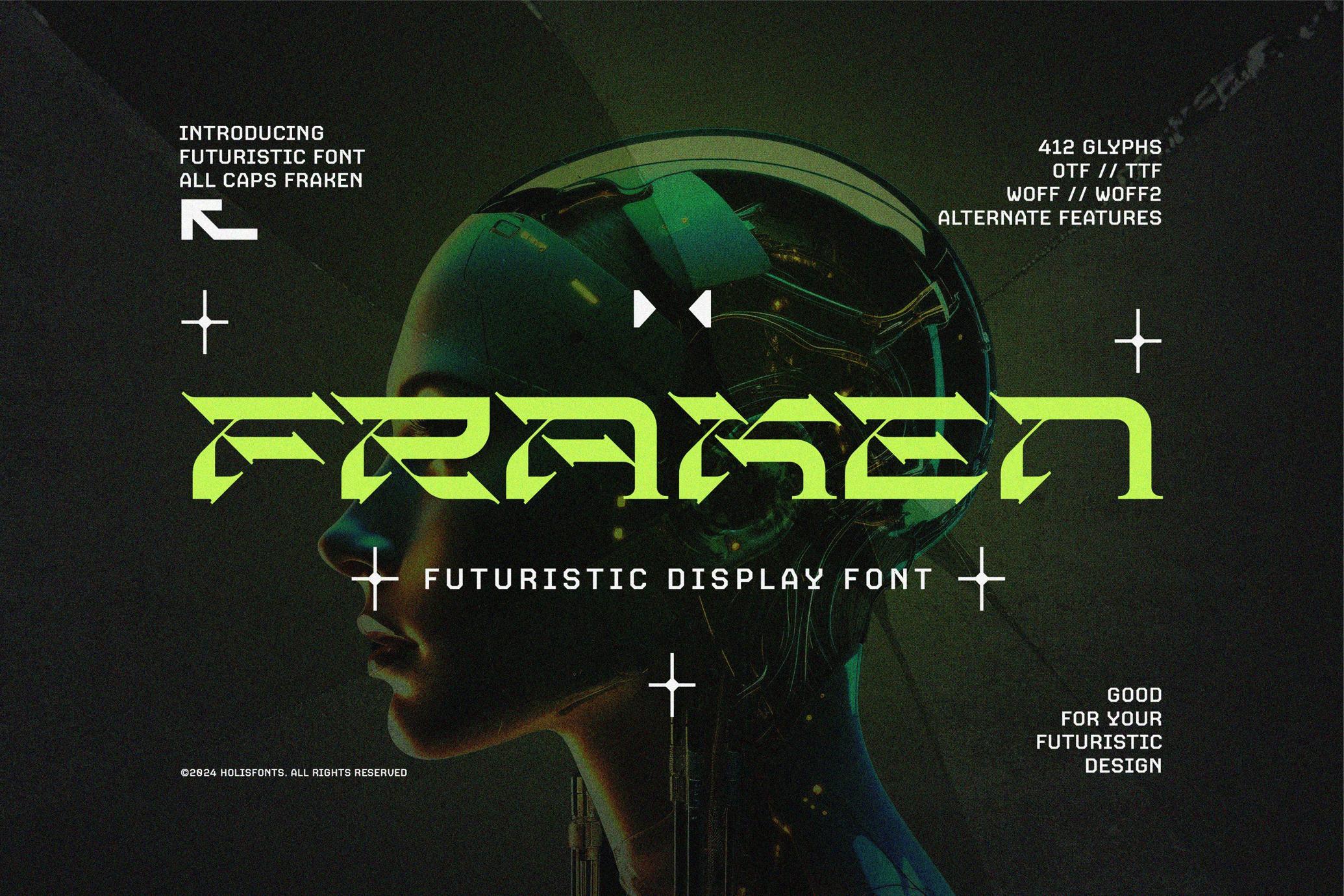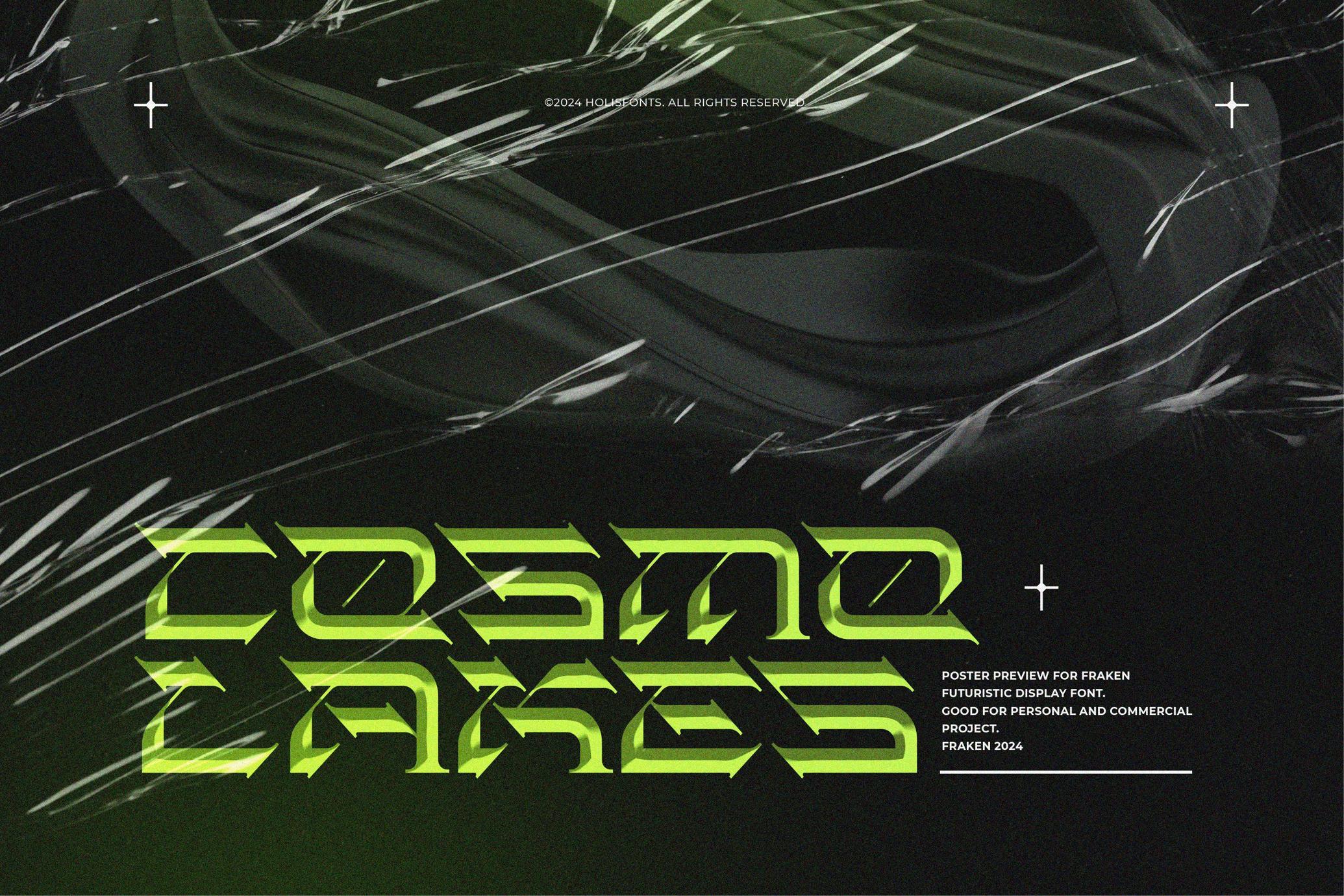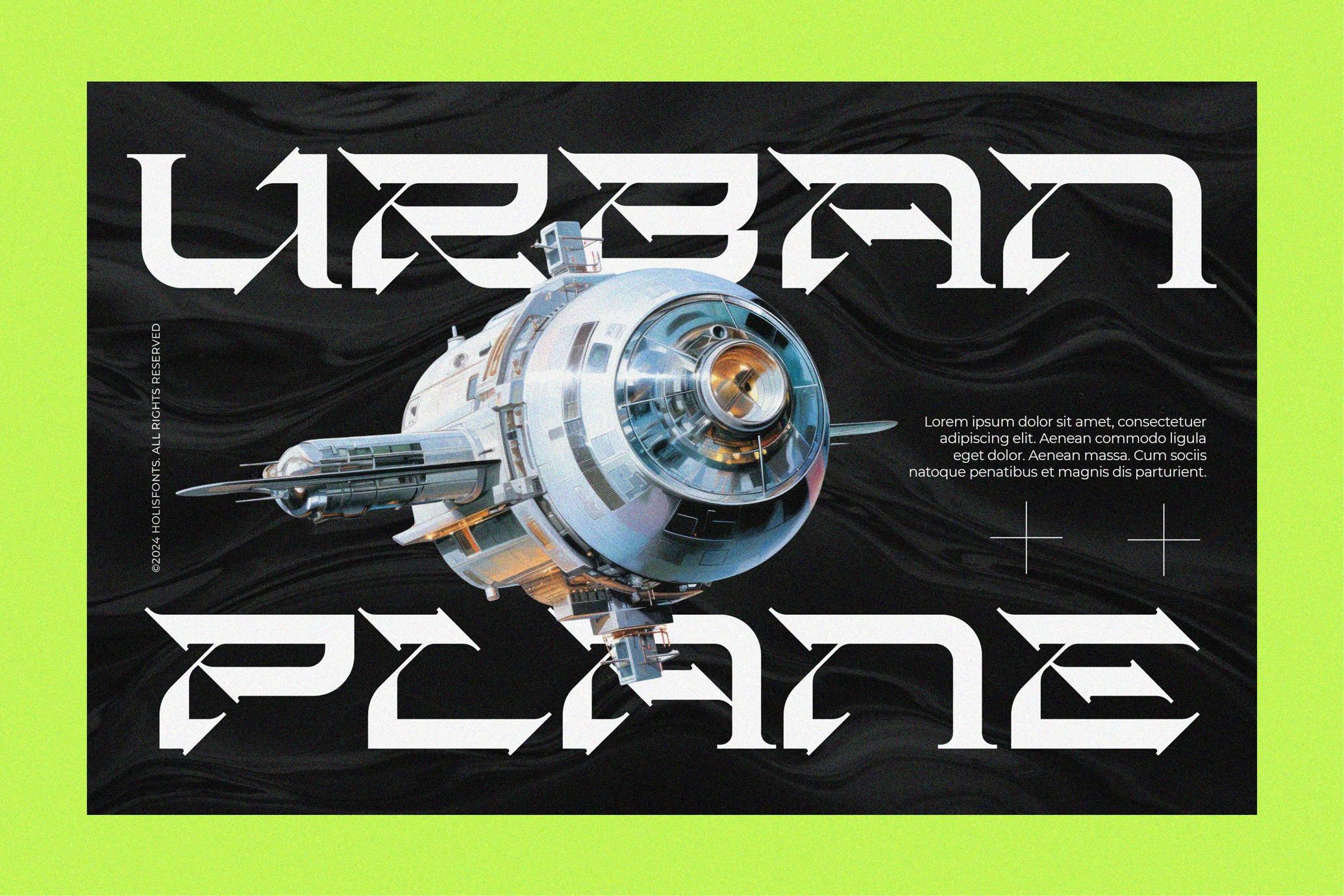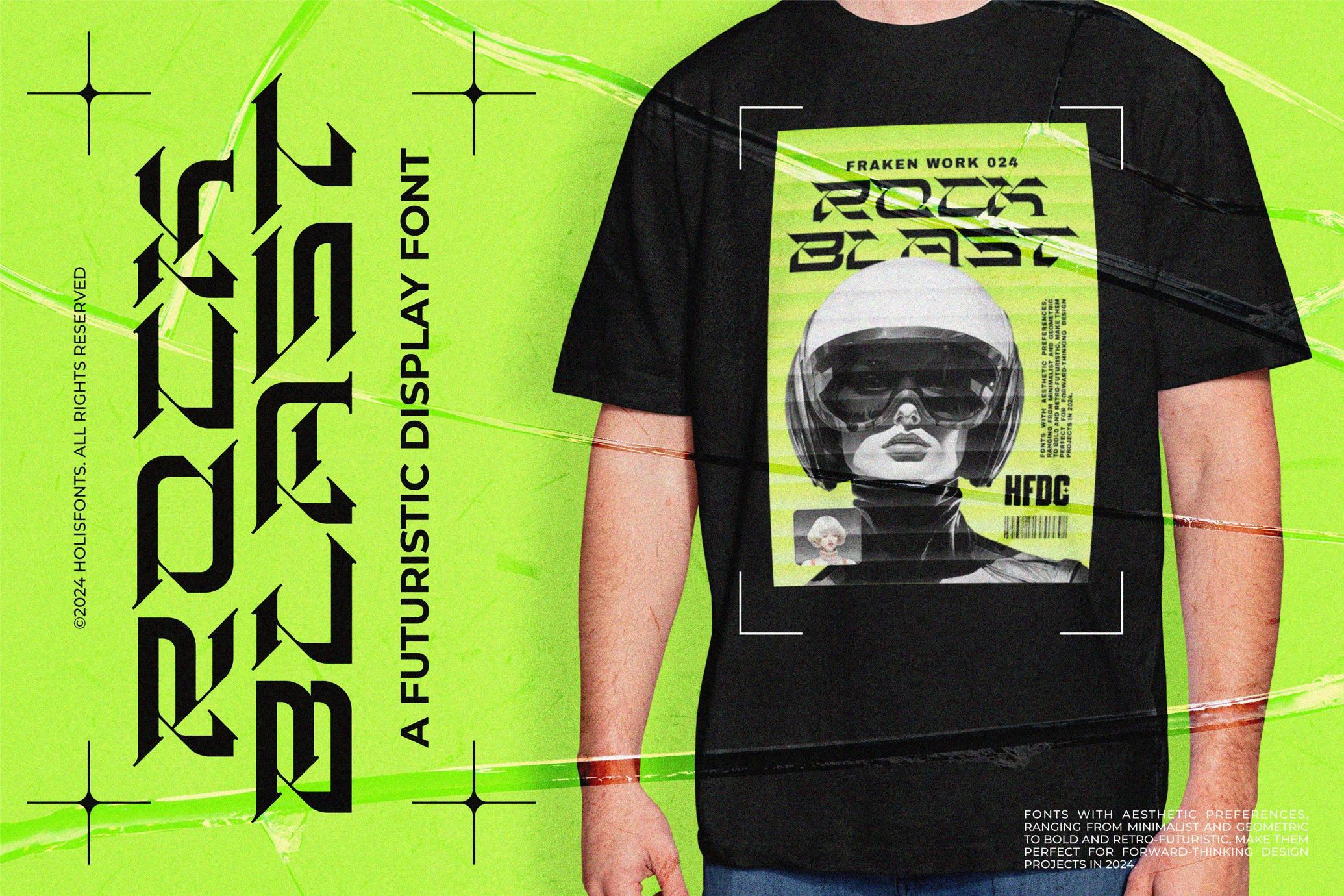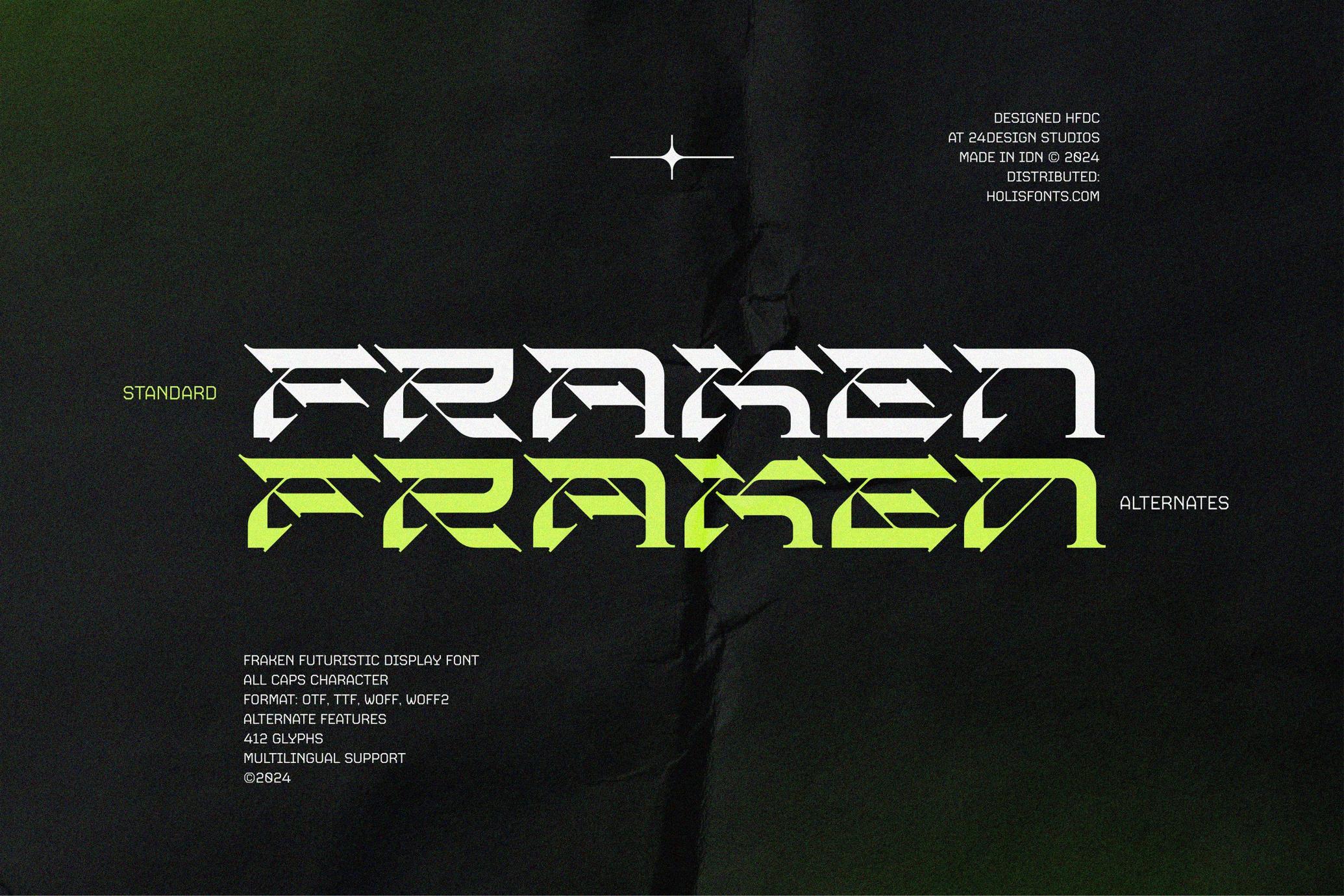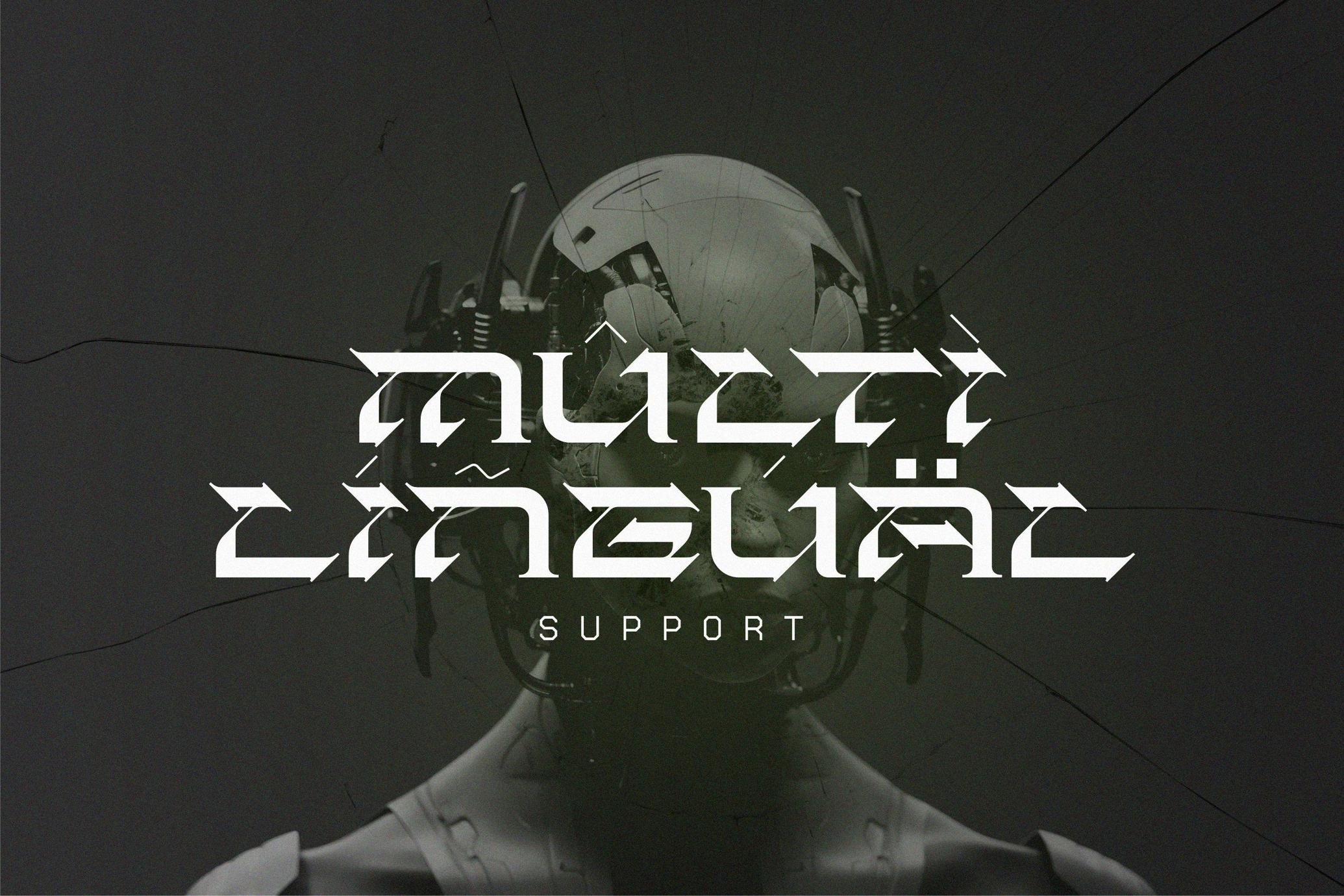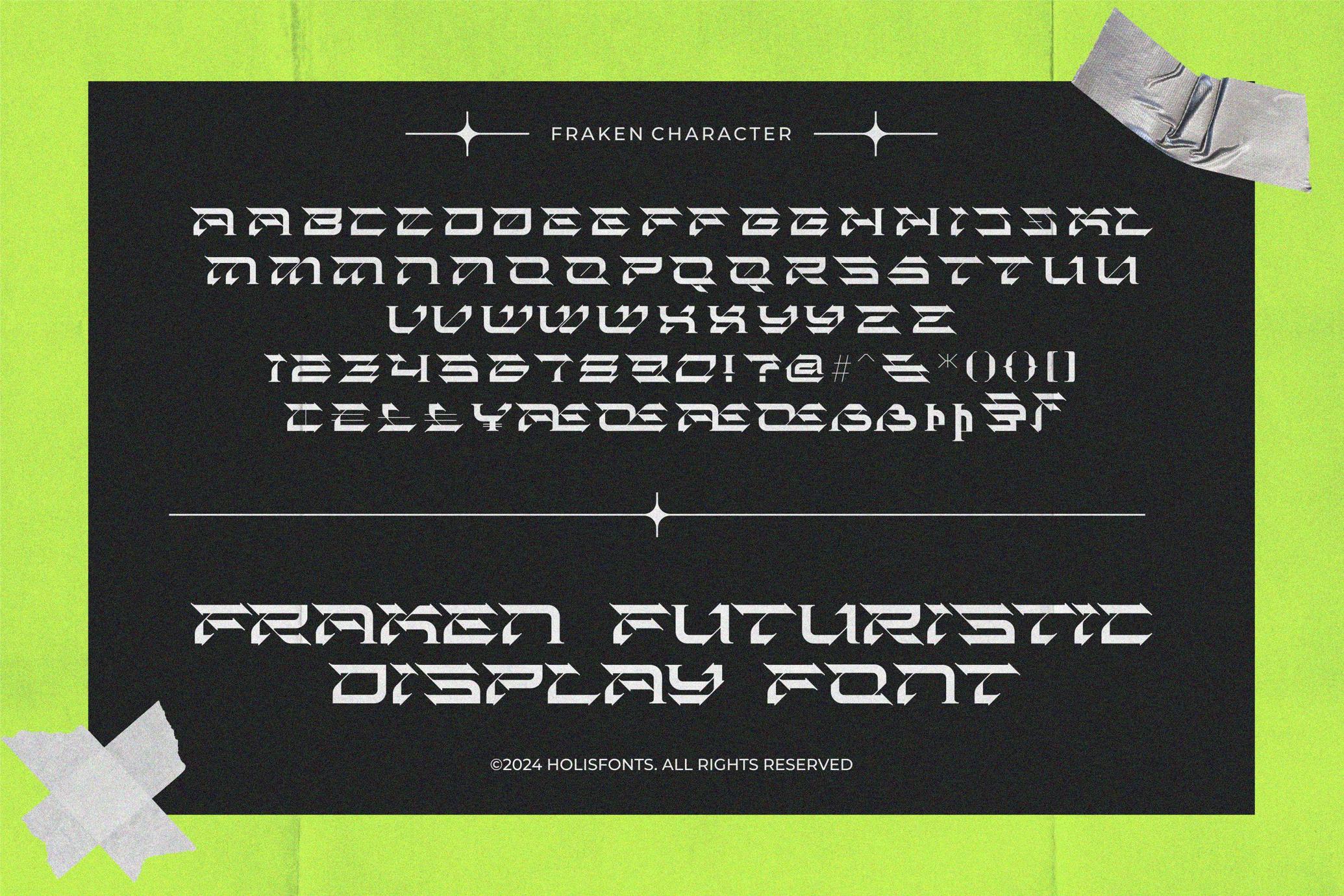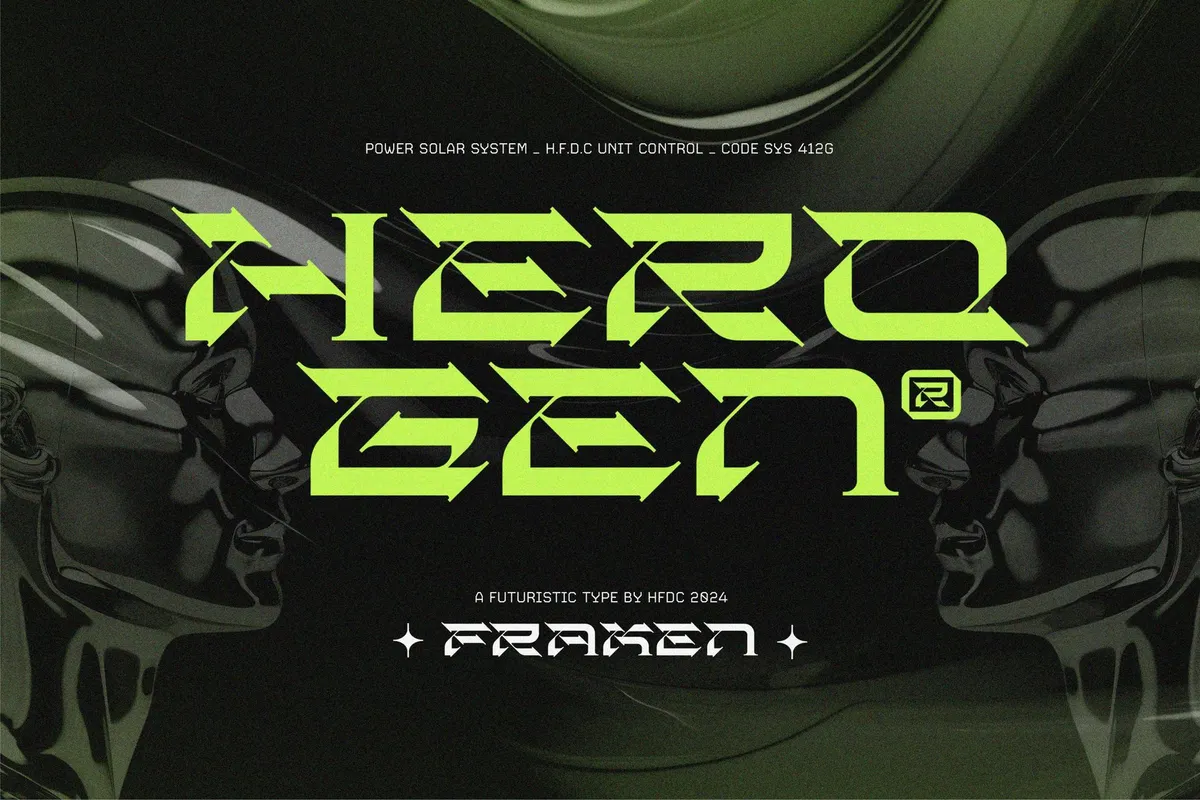
Fraken Futuristic Font
Fraken offers geometric aesthetic letter shapes with uppercase characters with alternate features. With its cool expanded design and a combination of thick and thin in each letter, it will highlight its high-tech appeal.
- All caps font
- Alternates features
- Punctuation and numeral